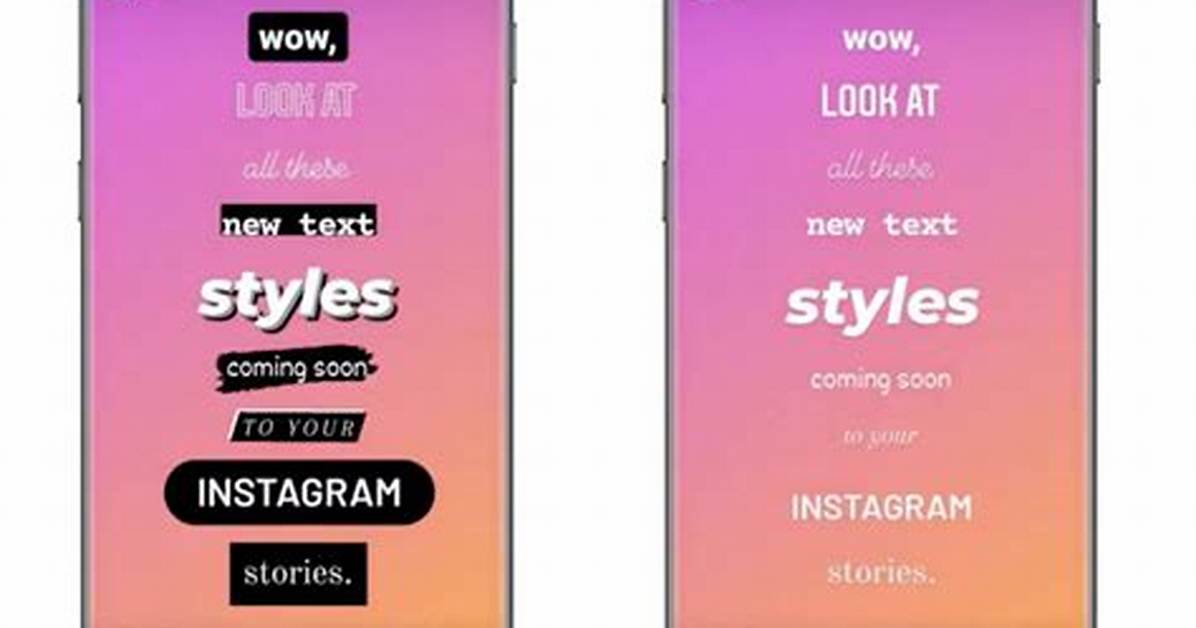
Four New Fonts Are Coming to Instagram Stories
We Express Ourselves Mostly in Written Form Nowadays, and Even Though Pictures and Videos Are a Lazy Workaround, Typography Still Matters. Instagram Recognizes...
We express ourselves mostly in written form nowadays, and even though pictures and videos are a lazy workaround, typography still matters. Instagram recognizes that. The social platform is adding four new fonts to Stories, and you could be either thrilled or terrified, depending on your attitude toward Comic Sans. This font has been fueling countless memes, but at the same time, it’s one of the easiest to read by people suffering from dyslexia. Instagram demonstrated the new fonts in a tweet, and polarized comments were quick to follow. Of course, you don’t have to use the Comic Sans-like font (it’s technically not Comic Sans) and you can banish everyone who sticks it in your eye.